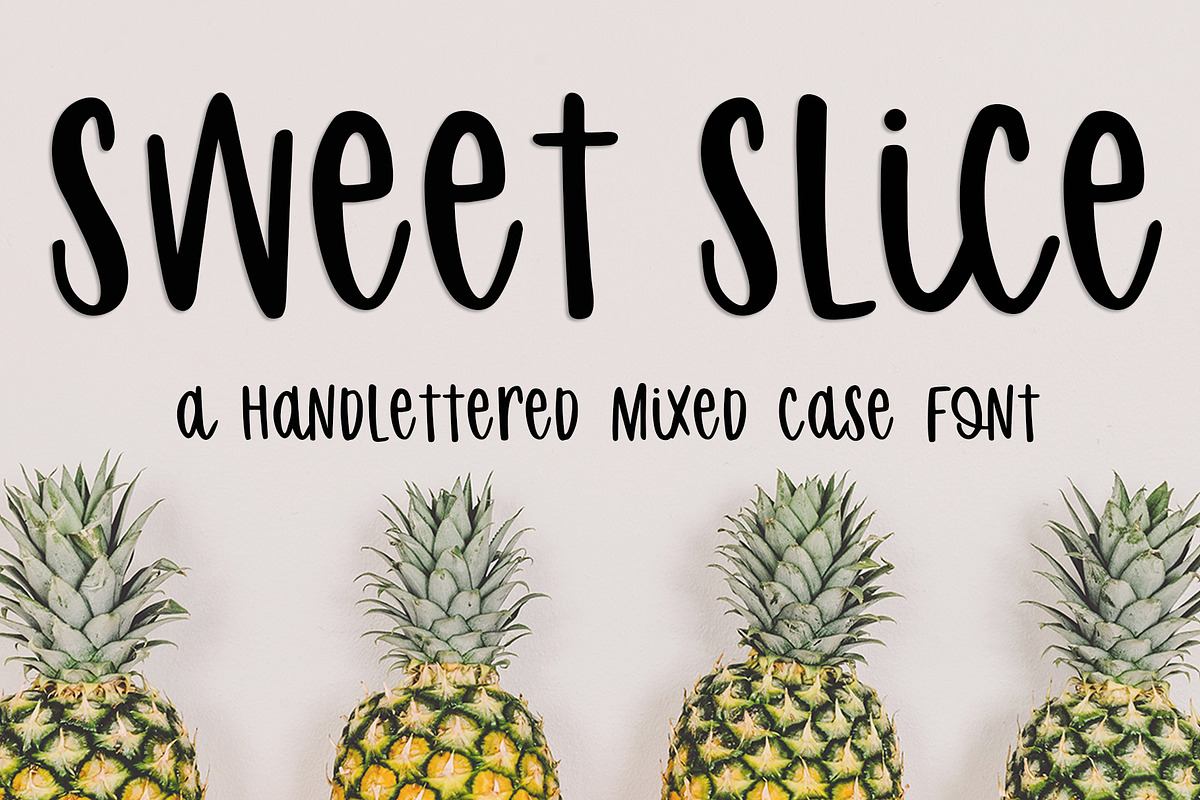
Sweet Slice Font Free Download is a playful and charming typeface with a deliciously fun vibe. Designed with soft curves, bouncy letters, and a hand-crafted feel, this font is perfect for bakery branding, dessert packaging, kids’ party invitations, and sweet-themed social media graphics.
Whether you're creating cupcake labels or designing a candy shop logo, Sweet Slice Font Free Download adds a warm and whimsical touch to every project. Its friendly style is both eye-catching and approachable, making it a go-to choice for creatives aiming to convey joy and sweetness.